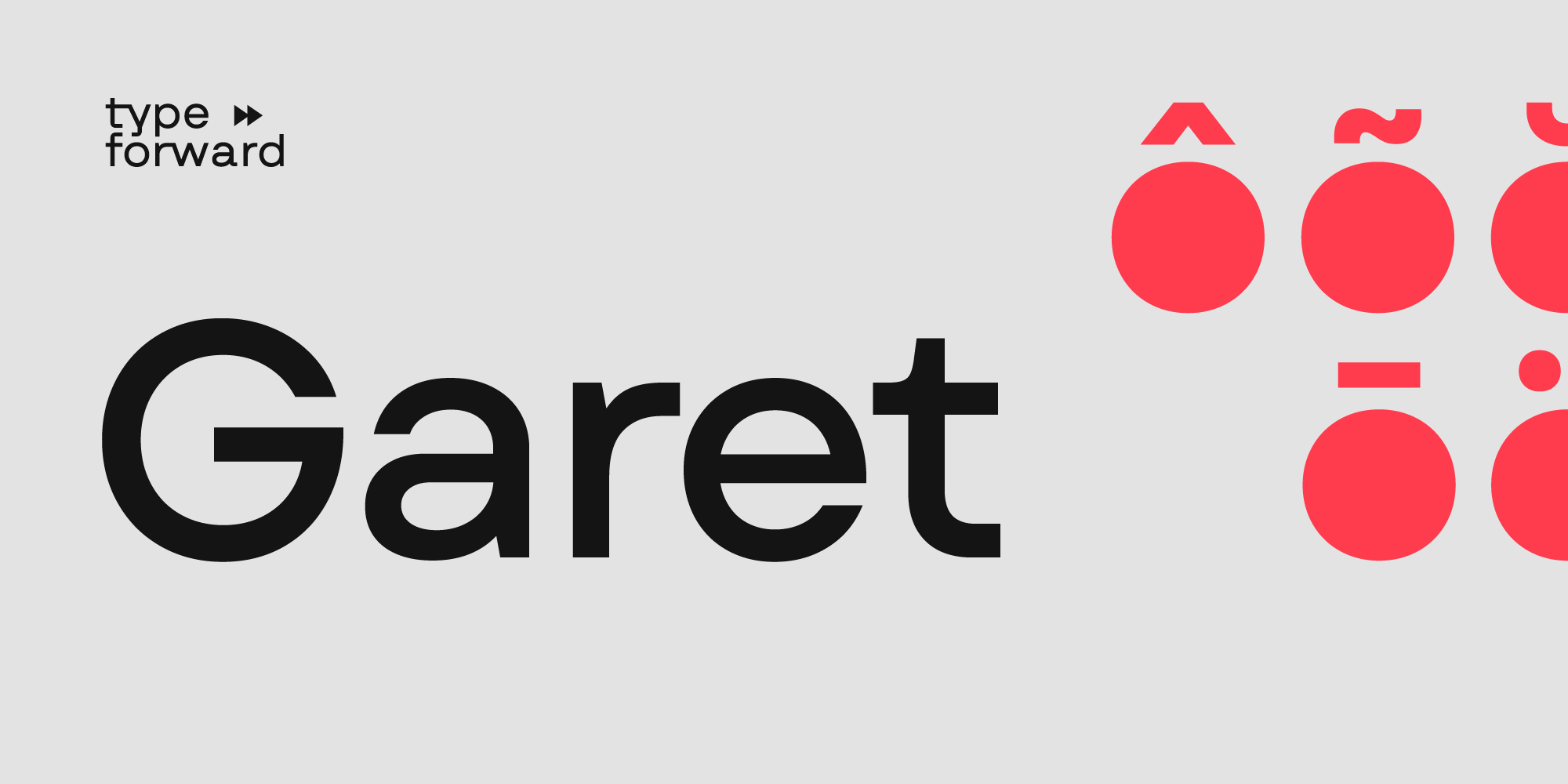
Garet Font is perfect for modern corporate branding, tech startup identities, contemporary website headers, minimalist product packaging, professional presentation materials, sleek advertising campaigns, innovative app interfaces, and sophisticated design projects that require clean geometric typography with contemporary precision and versatile functionality.
This Garet Font is exciting because it masterfully balances geometric purity with humanist warmth, featuring perfectly crafted letterforms with precise angles and subtle curves that create exceptional readability while conveying modern sophistication and professional reliability across both digital and print applications for diverse commercial needs.
The Garet Font family includes comprehensive weights with modern geometric styling, complete character sets with precisely constructed uppercase and lowercase letters, contemporary numerals, clean punctuation, and functional symbols that provide comprehensive typography solutions for corporate and technology design projects requiring sophisticated geometric aesthetics and professional versatility.
Perfect for creating distinguished modern communications and professional brand identities, Garet Font Free Download delivers the refined geometric typography that transforms text into powerful statements of contemporary professionalism and innovative thinking. This distinctive typeface represents the perfect fusion of geometric precision and practical functionality, making it essential for projects requiring modern corporate excellence, technology branding, professional communications, and any design demanding clean character with authentic contemporary sophistication and timeless geometric appeal.